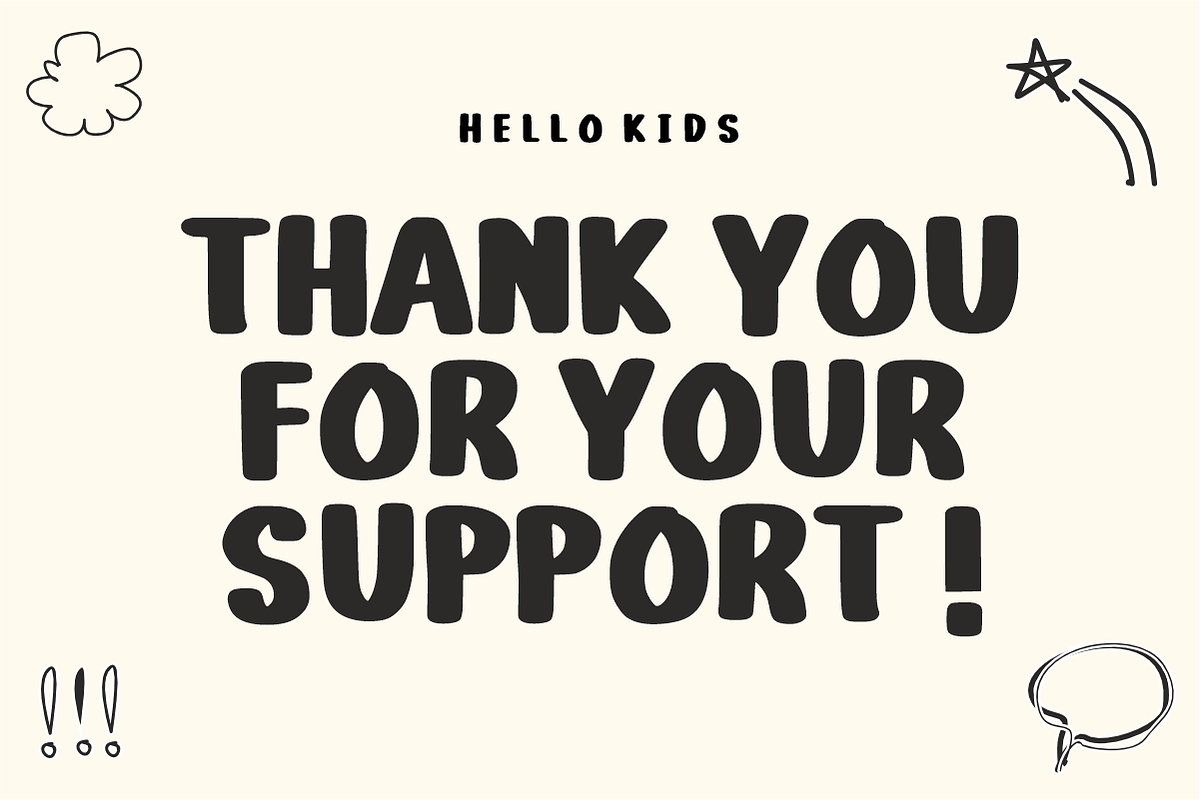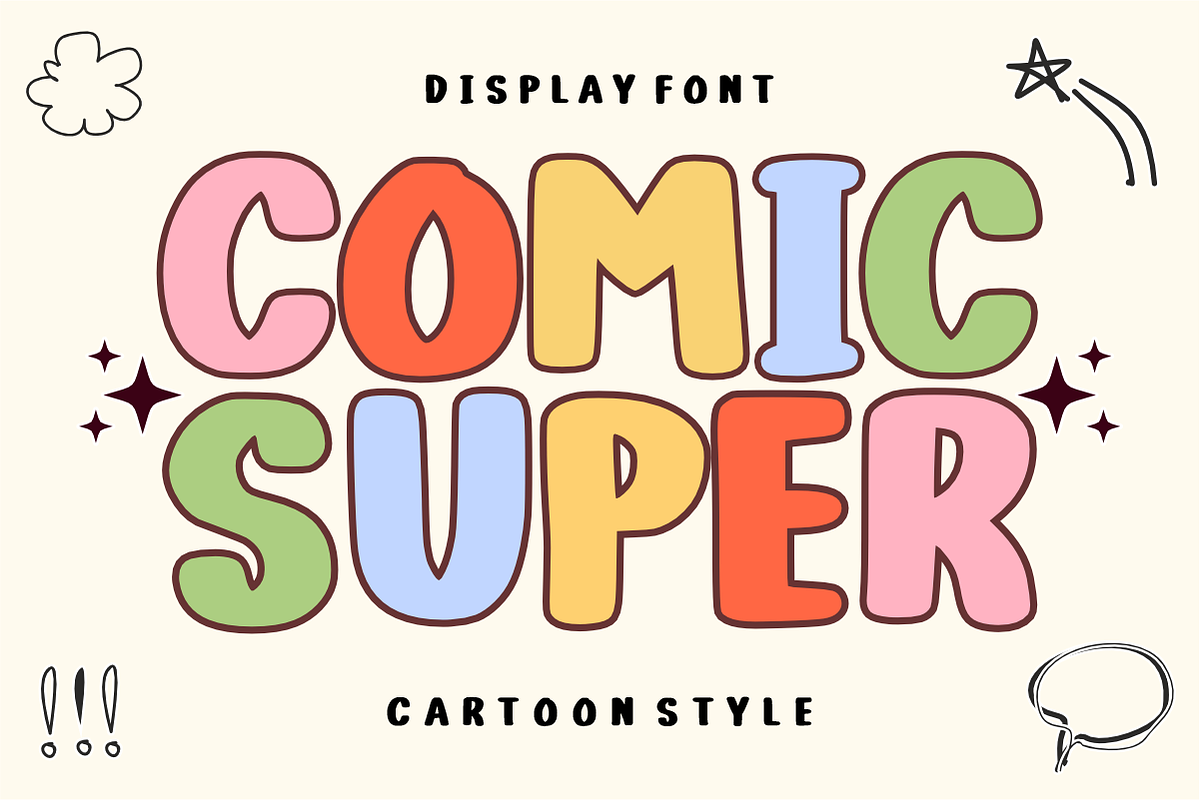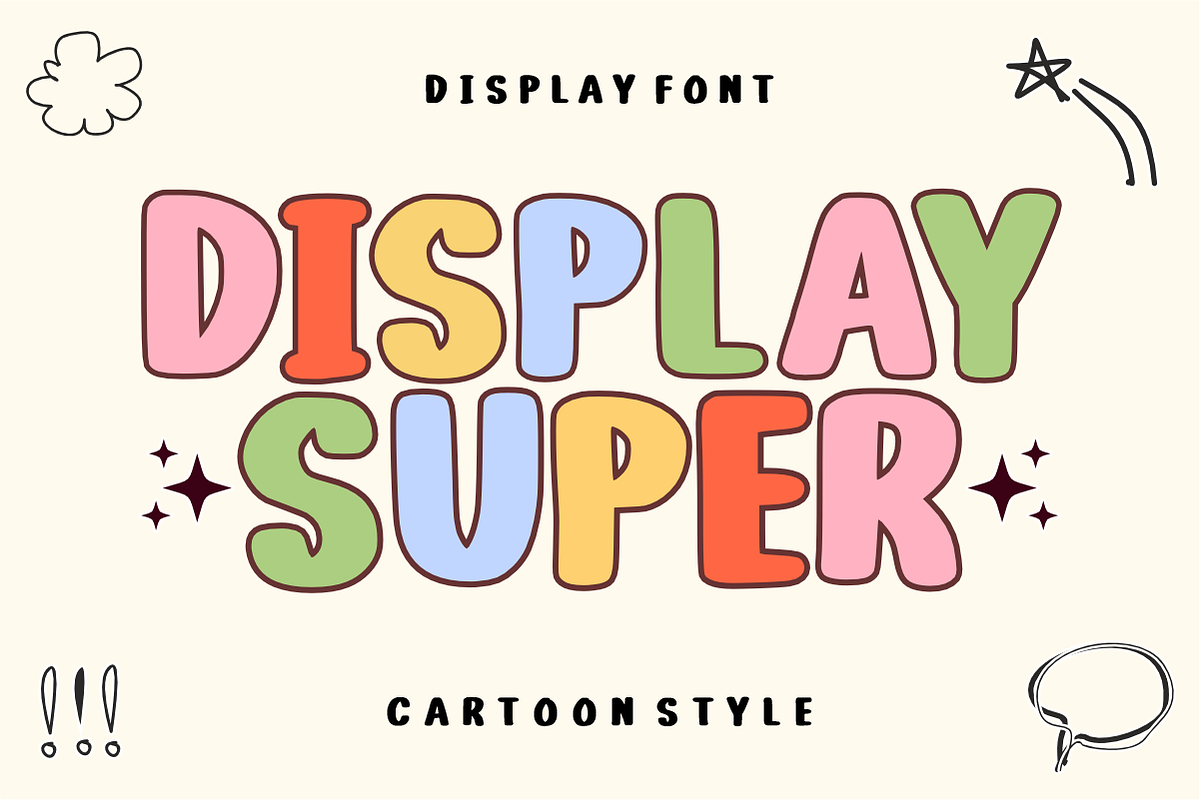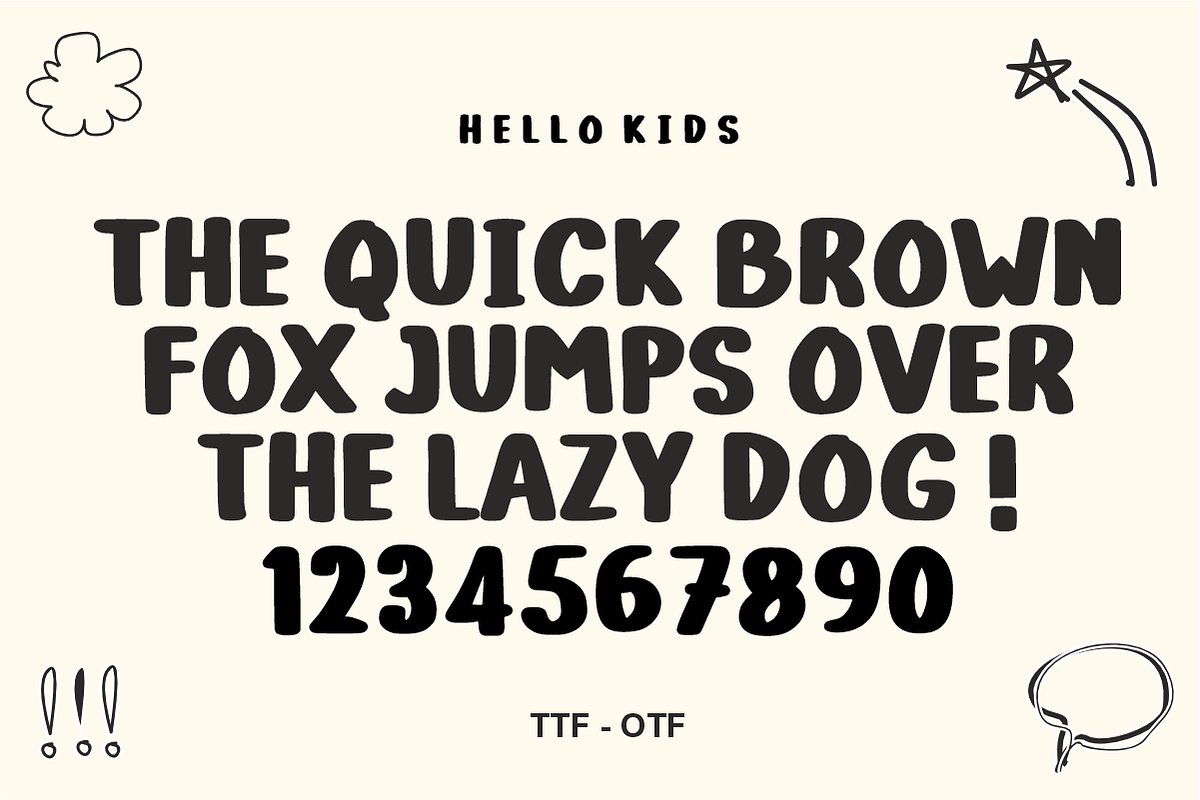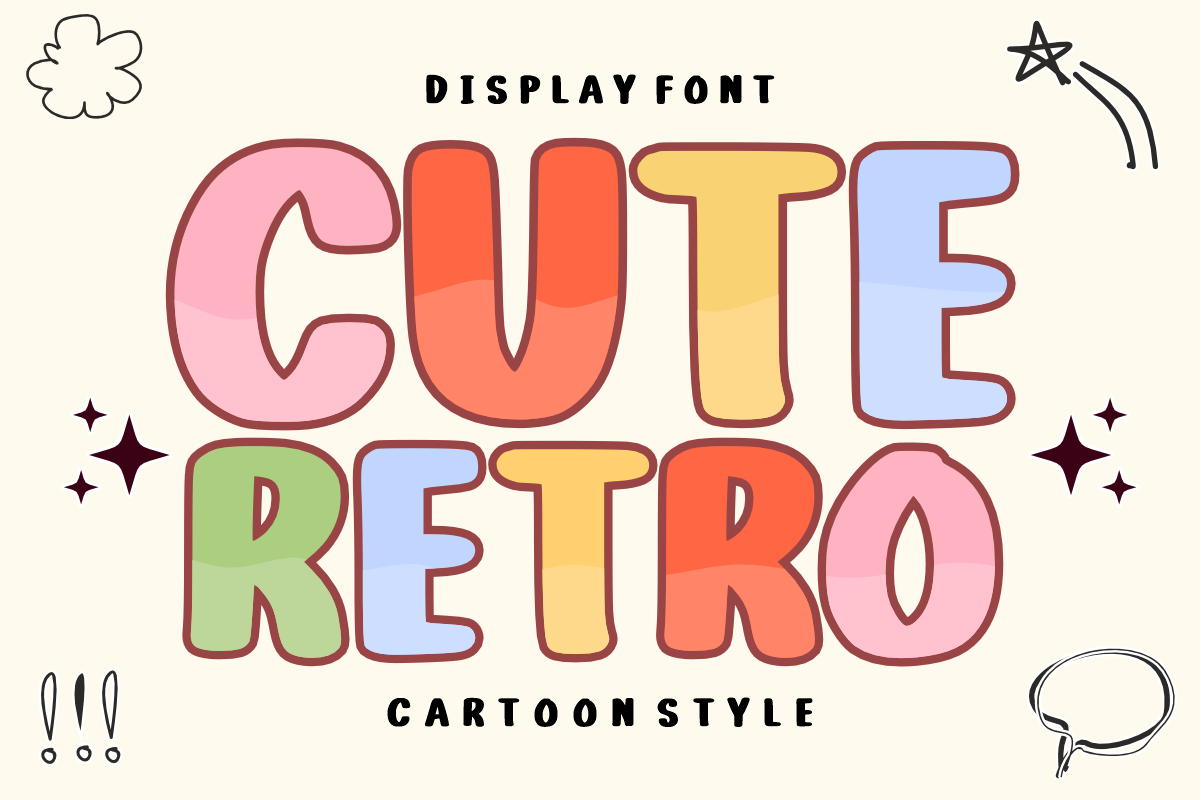
Cute Retro – Retro Display Font
Cute Retro – Bubbly & Glossy Display Font ✨🌈
Bring back the vibrant vibes of the 90s and Y2K with a sweet, modern twist!
Cute Retro is a high-energy, bubbly display font designed to make your designs "pop." Featuring thick, rounded silhouettes and a playful "glossy" highlight effect, this font perfectly captures the nostalgic aesthetic of retro stickers and cartoon titles. It’s a friendly, approachable, and bold typeface that instantly adds a fun and youthful personality to any creative project.
🌟 Why Cute Retro is a Must-Have:
Unique Glossy Detail: Each character features built-in highlights that give it a 3D, sticker-like appearance without needing extra effects.
Nostalgic Vibe: Perfectly aligns with the trending "Modern Retro" and "Groovy" aesthetics that are currently dominating social media.
Maximum Impact: The bold weight and large proportions ensure your headlines are eye-catching and easy to read.
Effortless Style: Just type and go—the font's natural character makes even simple words look like custom-designed logos.
Uppercase Letters (A-Z): Bold, expressive characters with consistent glossy highlights.
Numbers (0-9) & Simple Symbols: Essential punctuation and figures for complete designs.